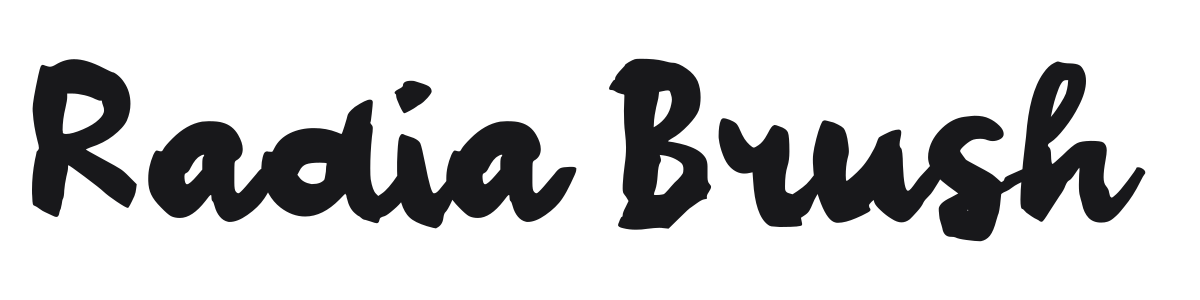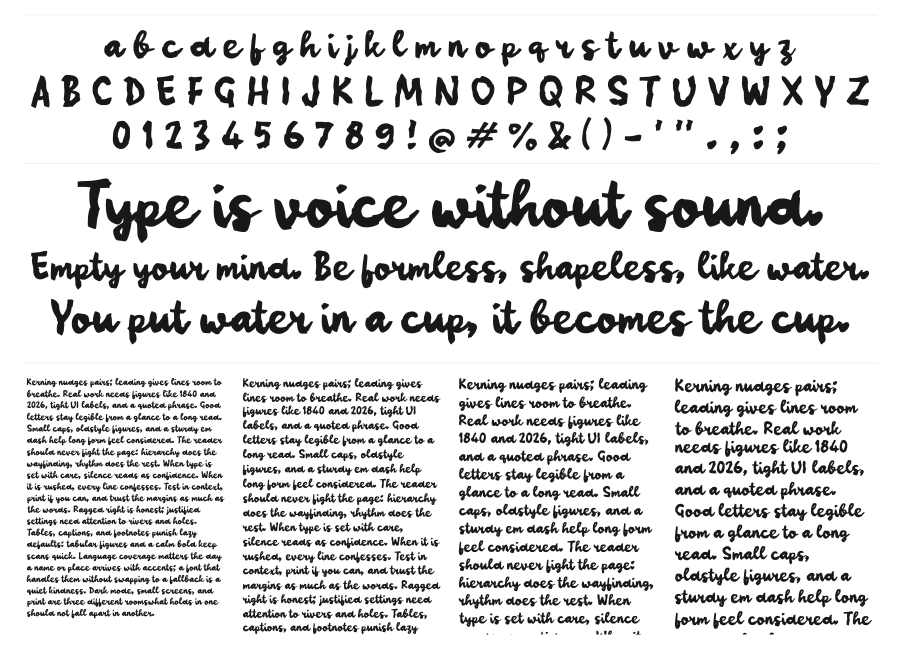
Radia Brush
Radia Brush is a bold, flowing brush script with thick ink-saturated strokes and a loose, hand-painted energy. Letters connect fluidly across the baseline with just enough irregularity to feel genuinely handcrafted rather than mechanical. It works best at large sizes where the brushwork texture comes through.